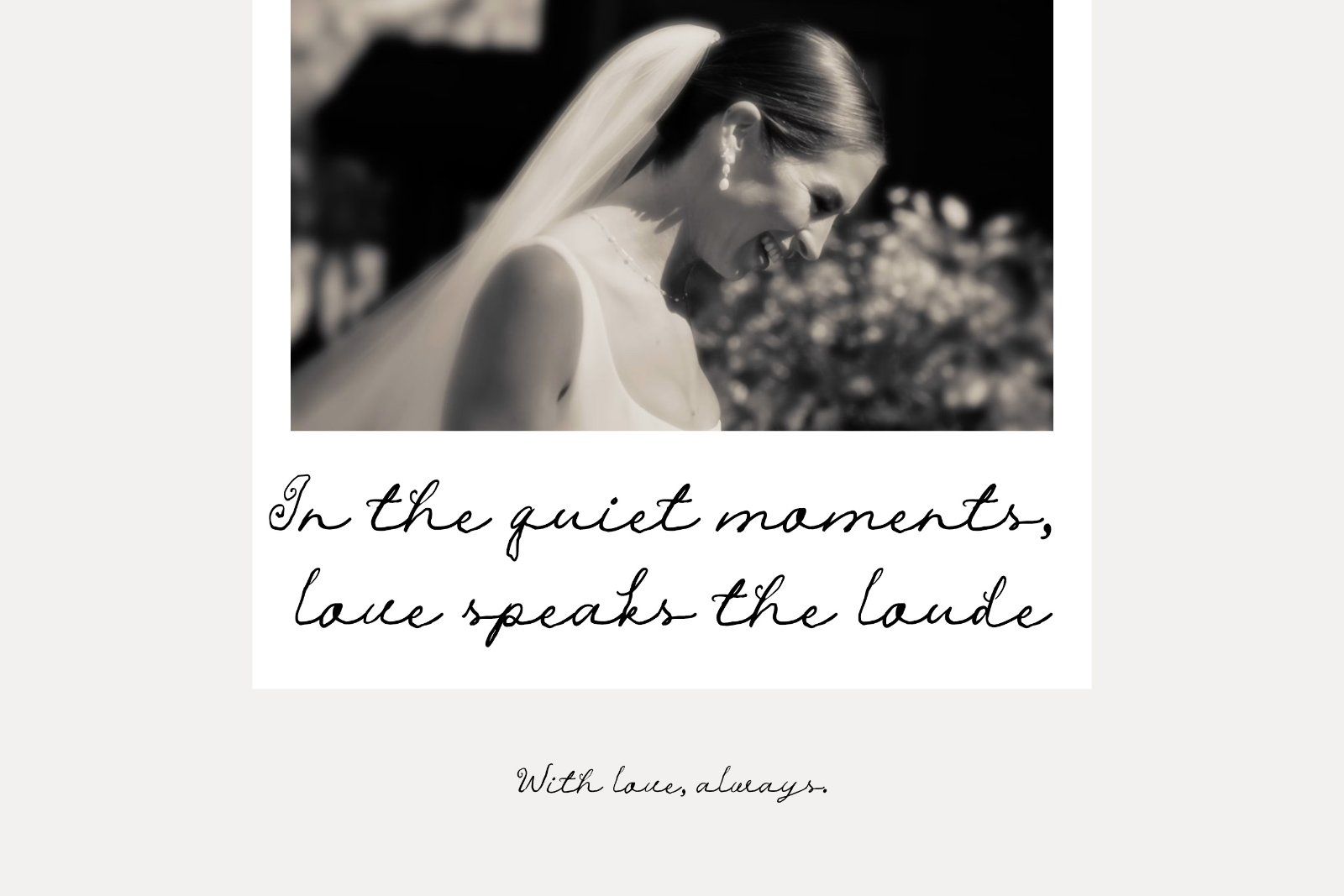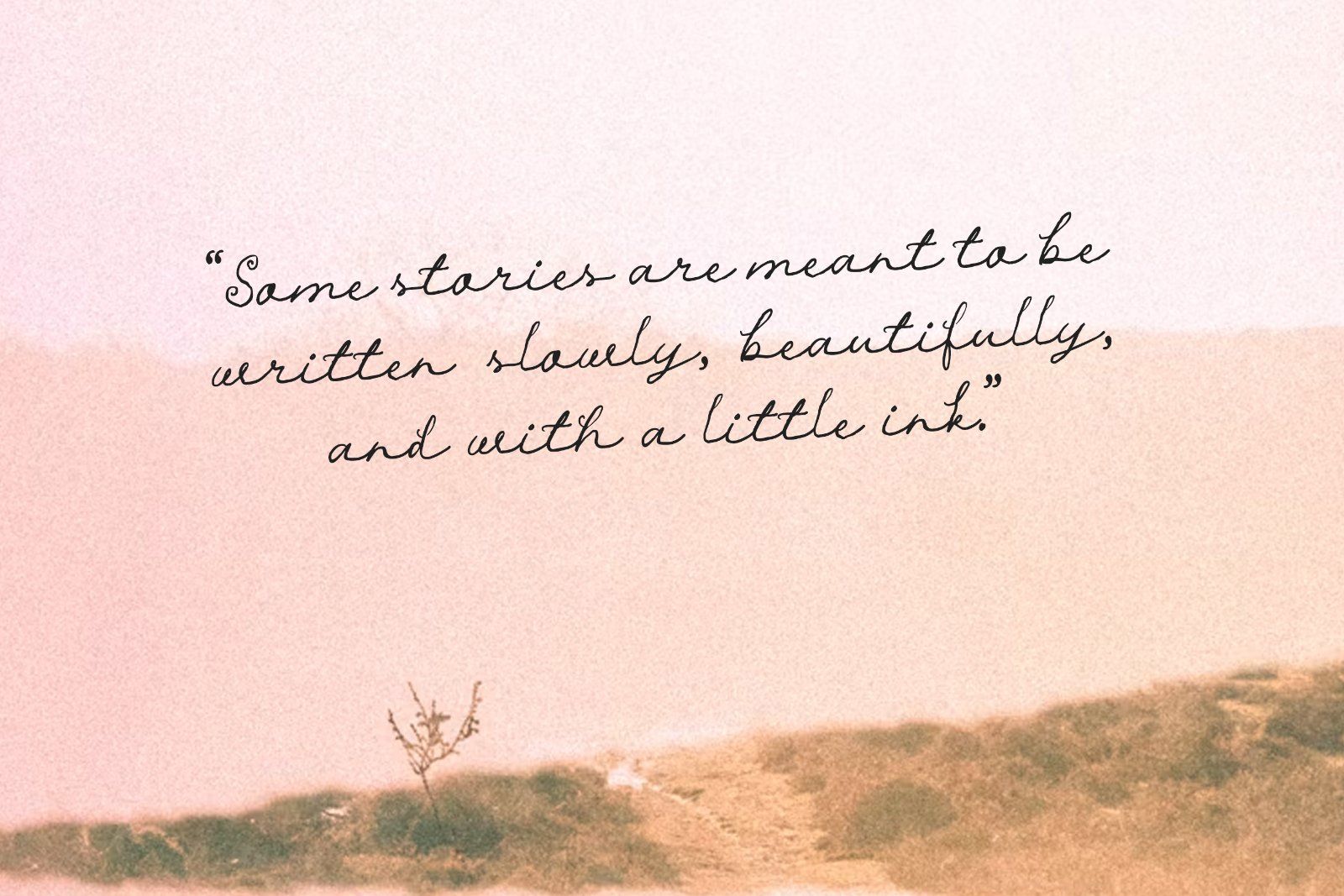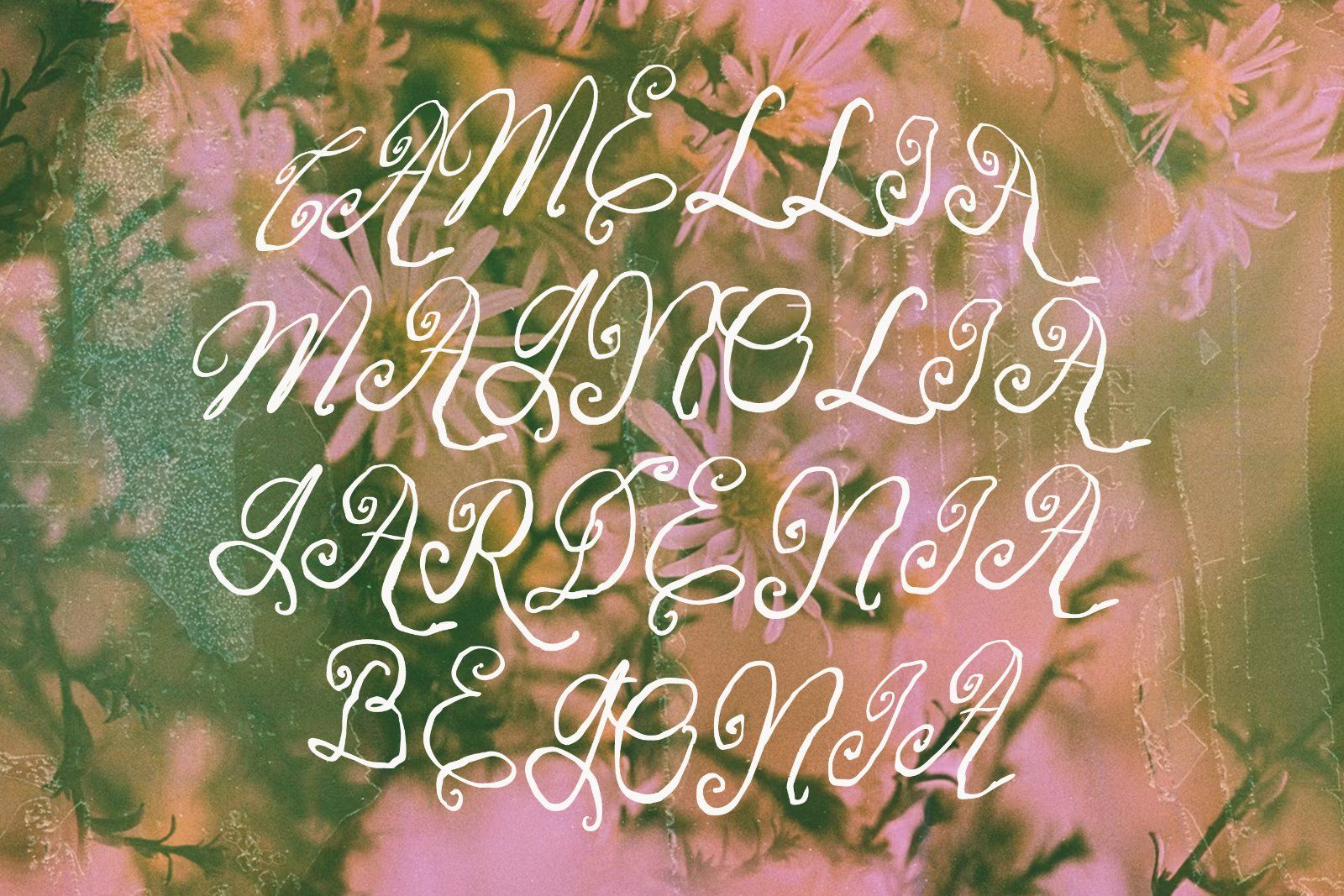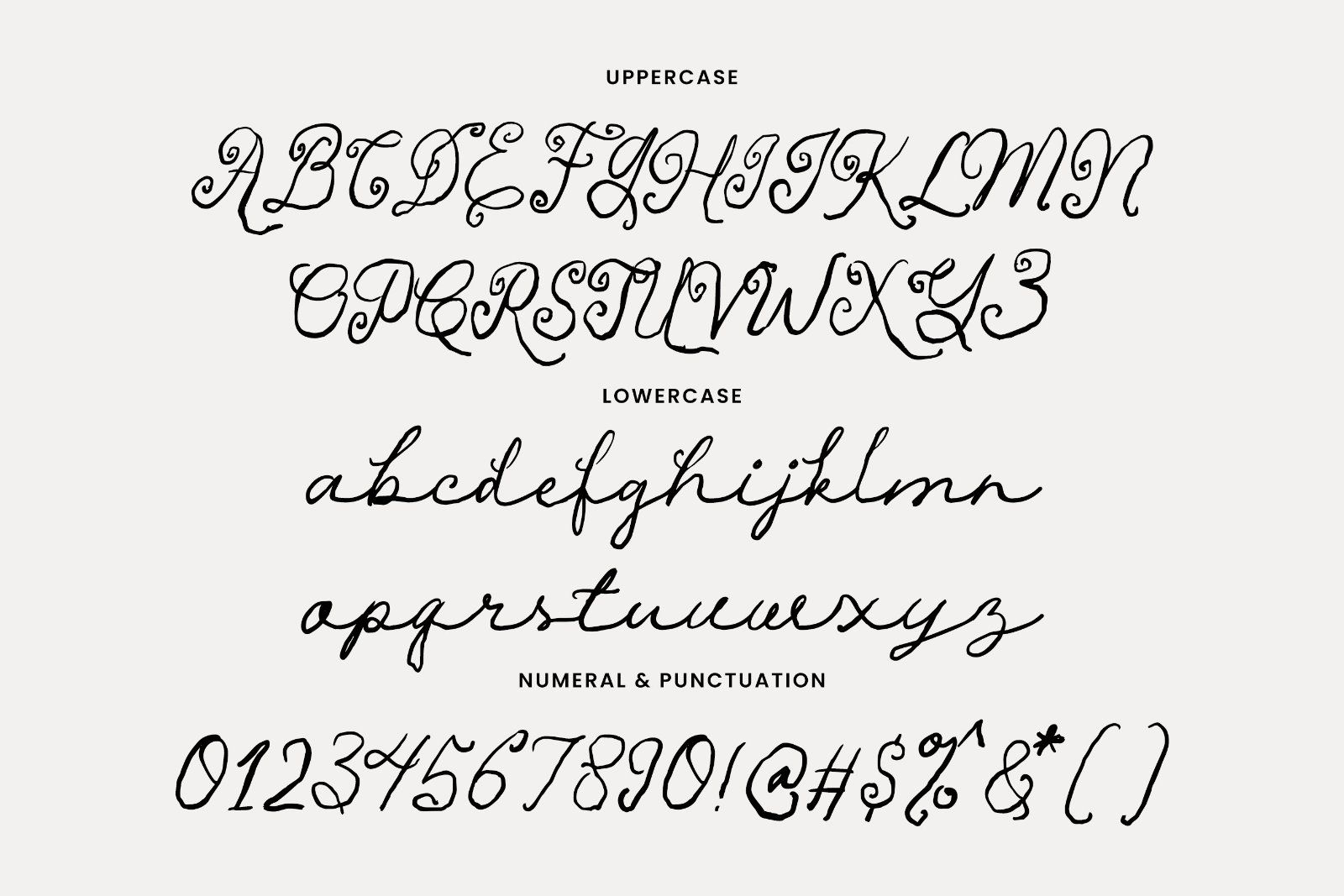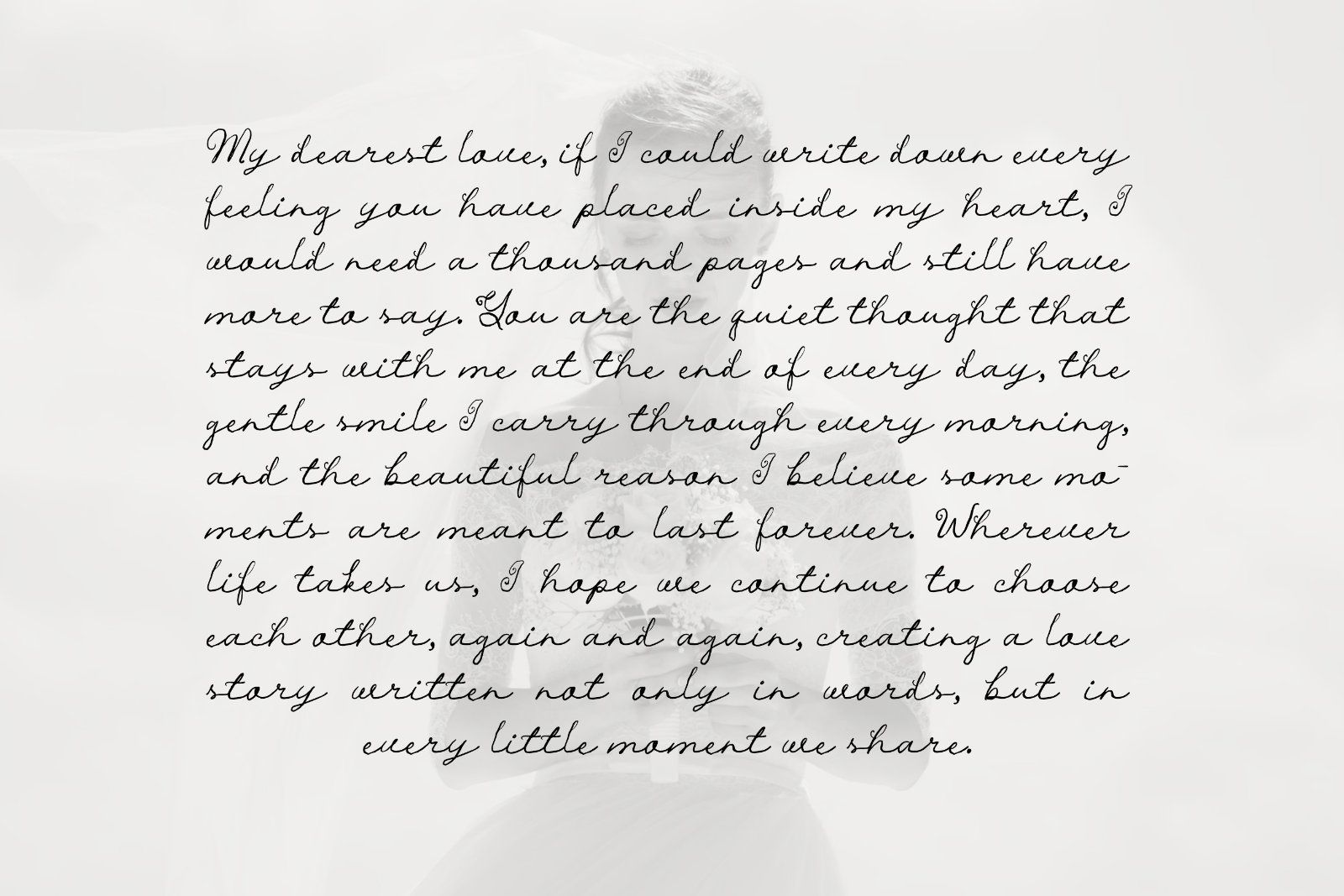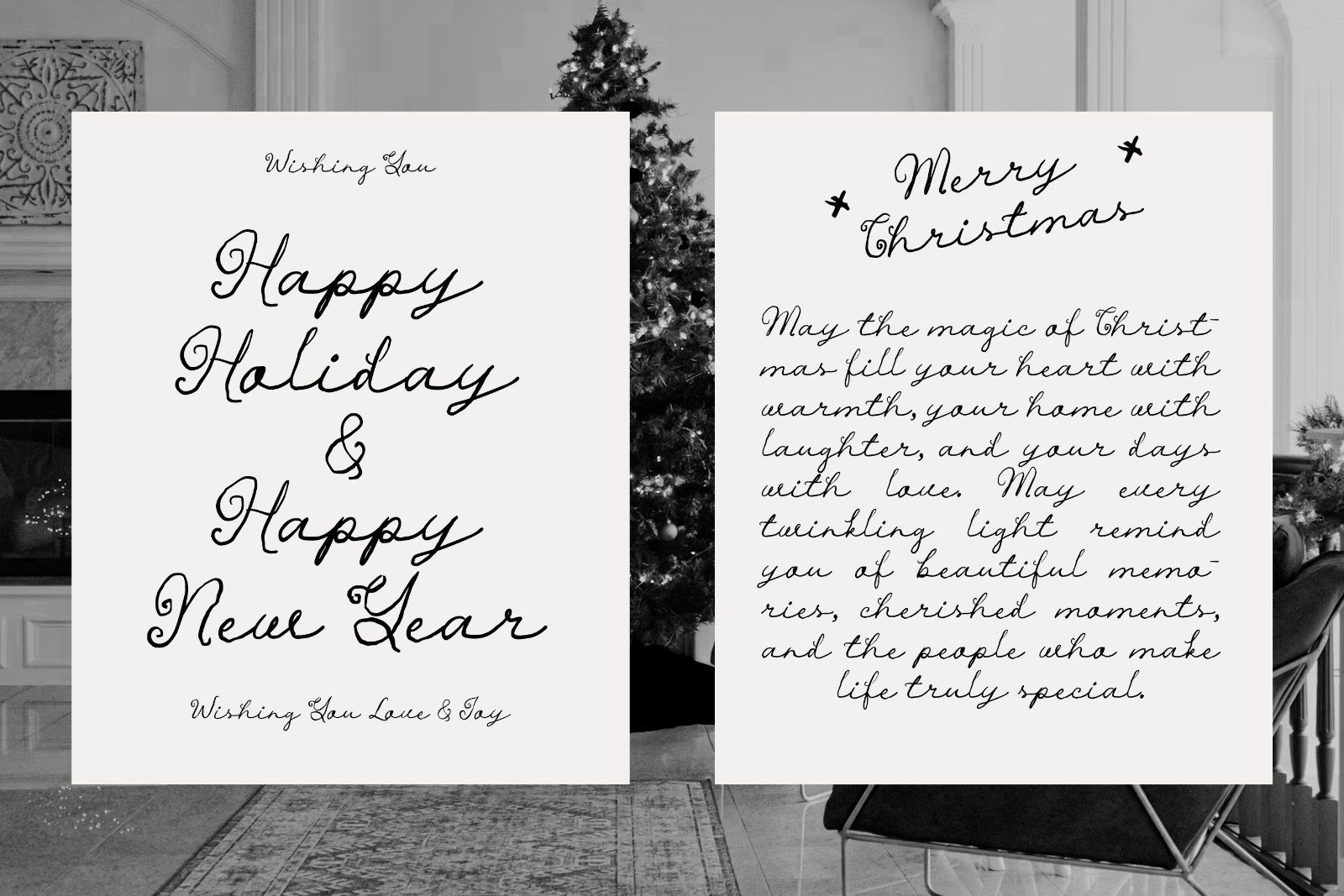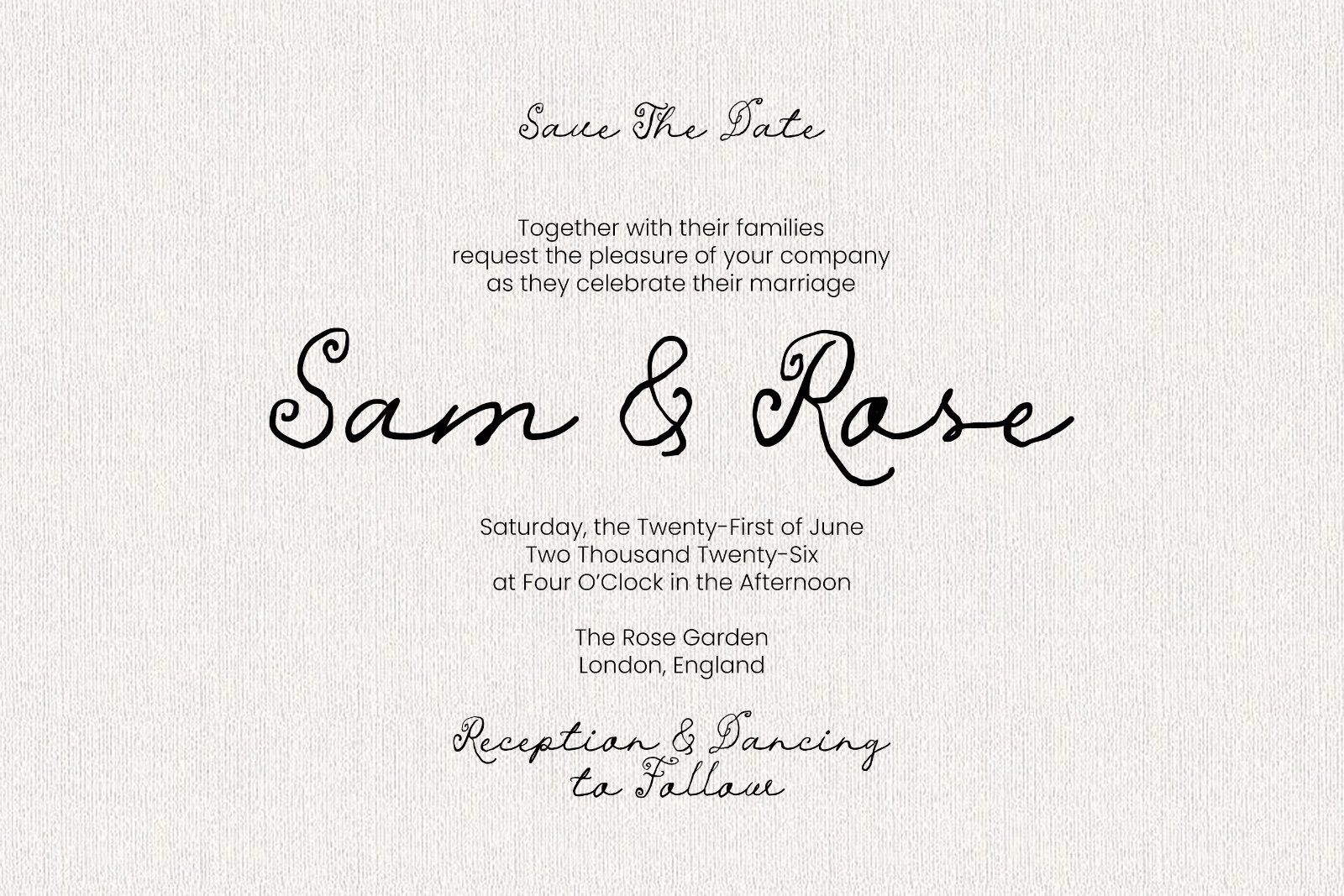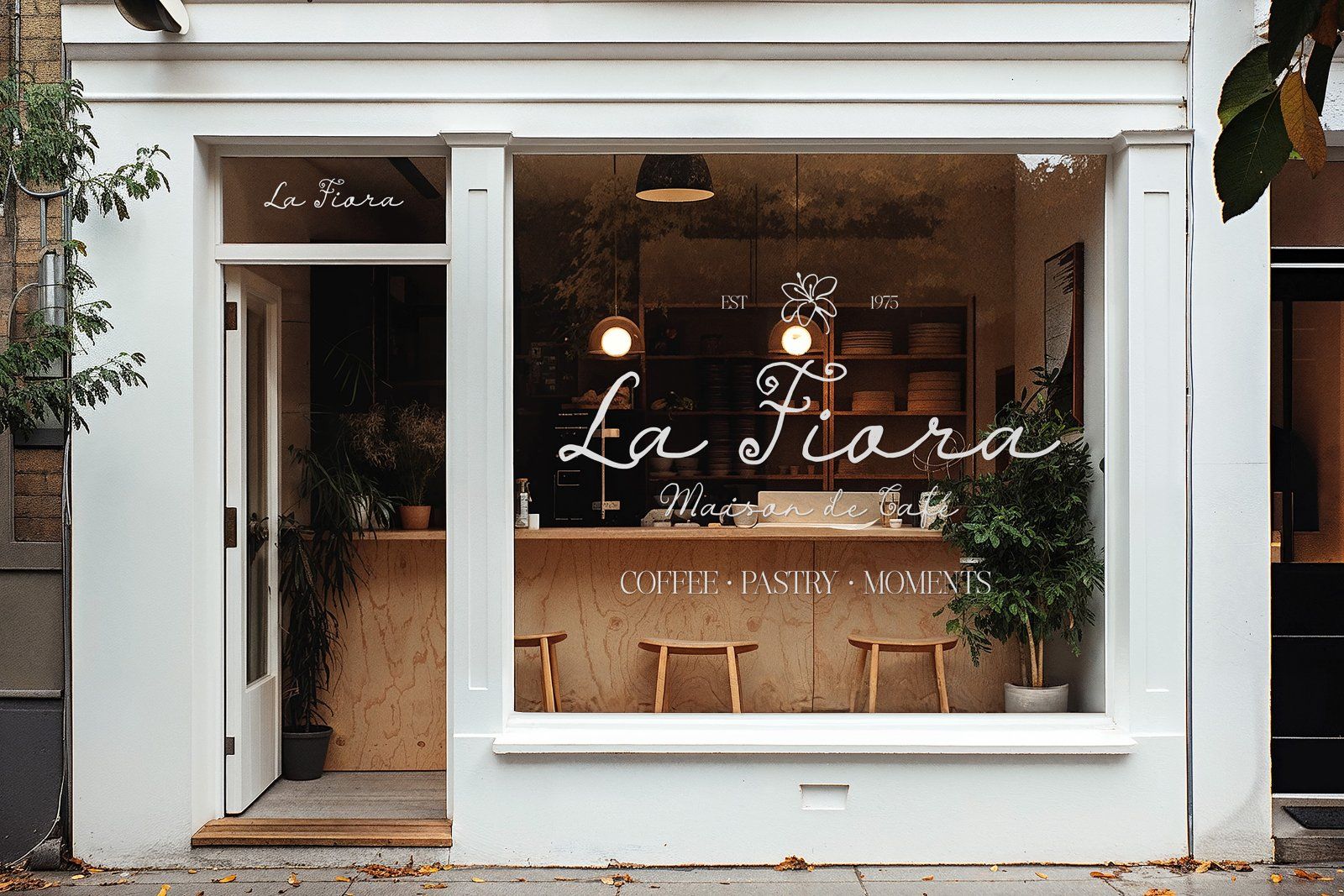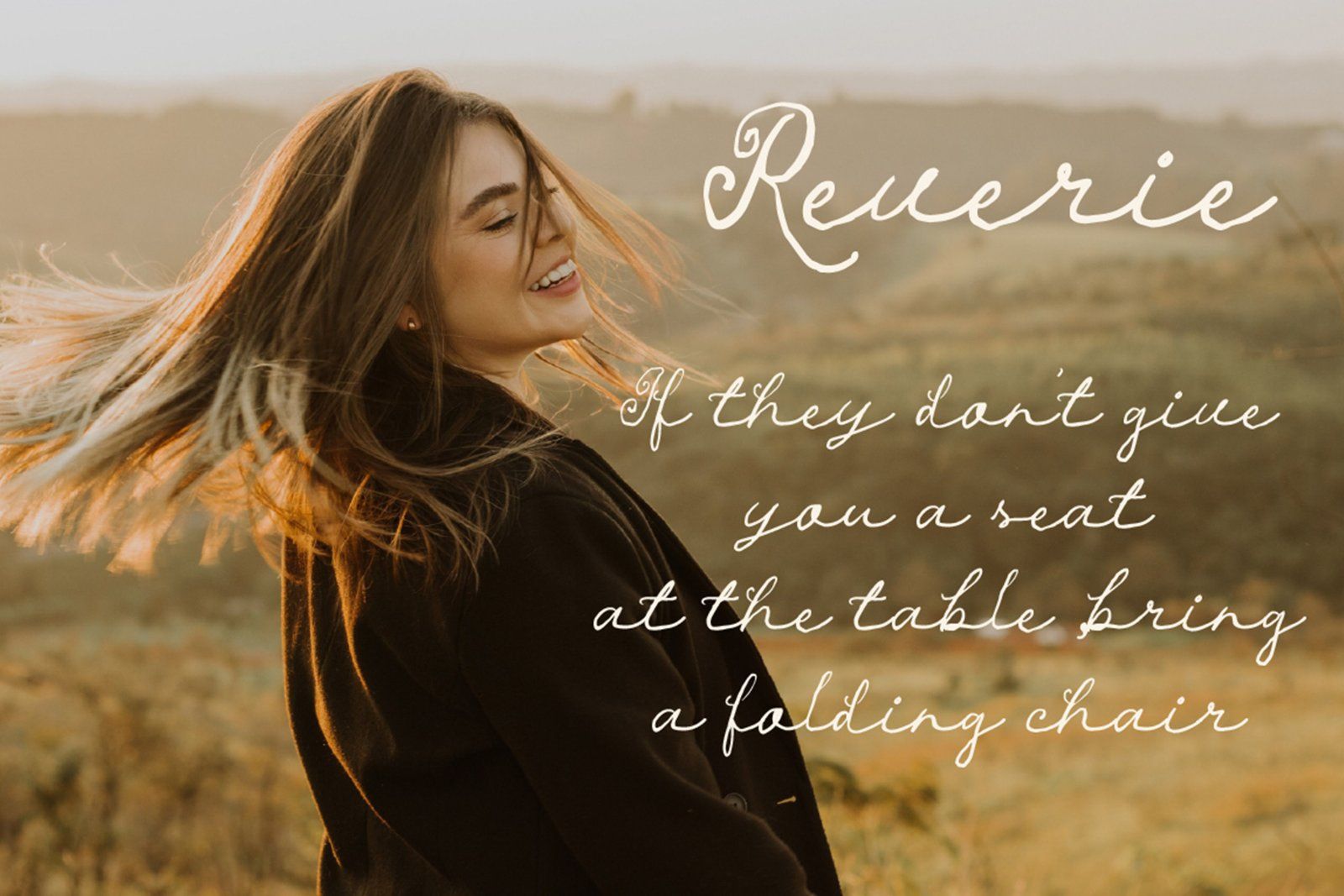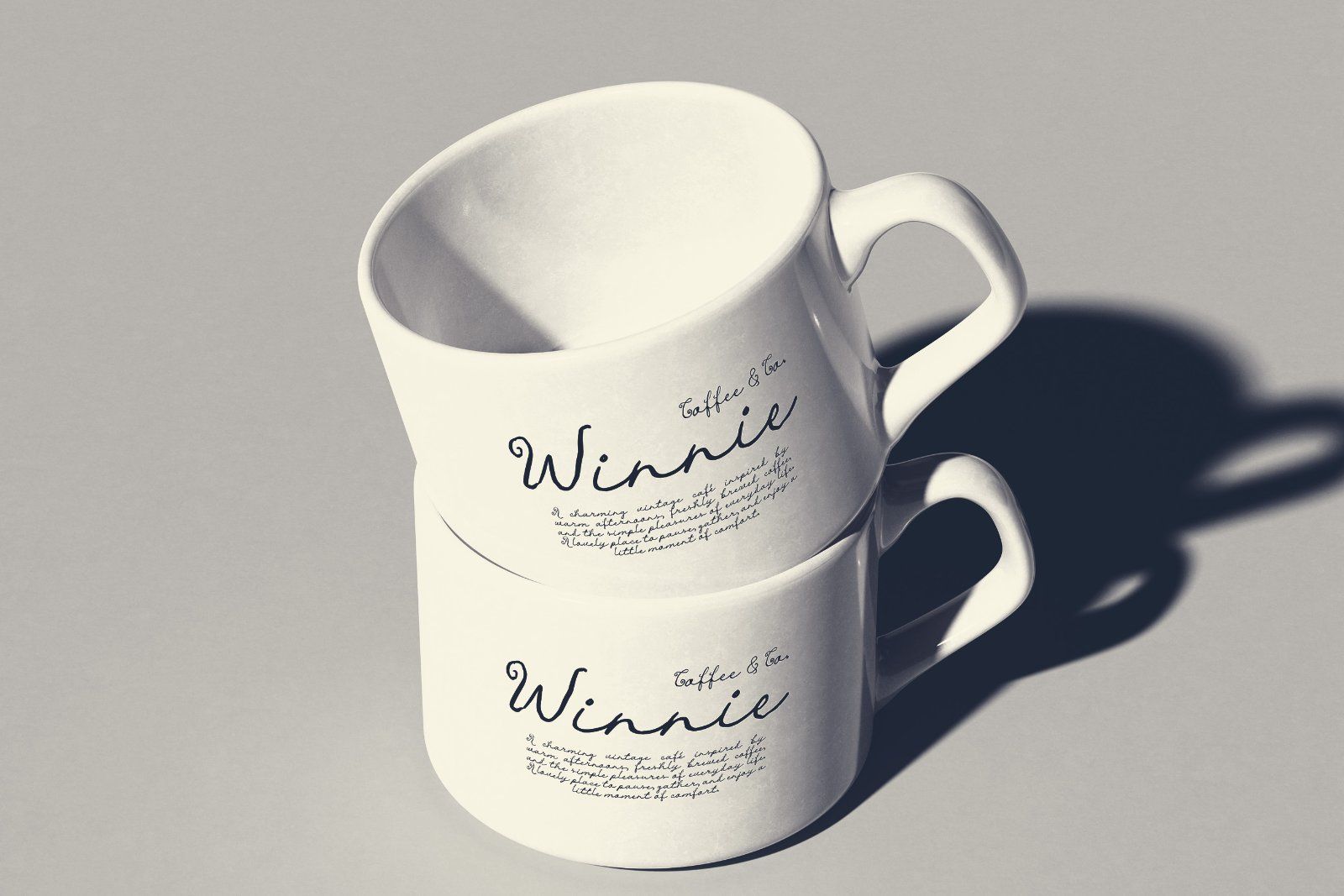
The Louise Script is a whimsical handwritten script designed to bring a delicate, romantic, and effortlessly elegant touch to your creative projects. With its flowing strokes, charming letterforms, and natural handwritten character, this typeface is perfect for designs that need a personal and sophisticated feel.
Inspired by the beauty of handwritten lettering, The Louise Script works beautifully for wedding invitations, romantic stationery, branding, logos, packaging, social media designs, quotes, greeting cards, editorial projects, and more.
Its graceful and expressive style makes it easy to create elegant typography while maintaining a warm, authentic handwritten appearance.
• Wedding invitations & stationery
• Wedding planners & event branding
• Logos & brand identity
• Beauty & fashion branding
• Packaging & labels
• Greeting cards
• Quotes & social media graphics
• Editorial designs
• Posters & signage
• Personal projects
The Louise Script is made for designers, creatives, and brands looking for a beautiful handwritten typeface that feels romantic, graceful, timeless, and effortlessly charming.